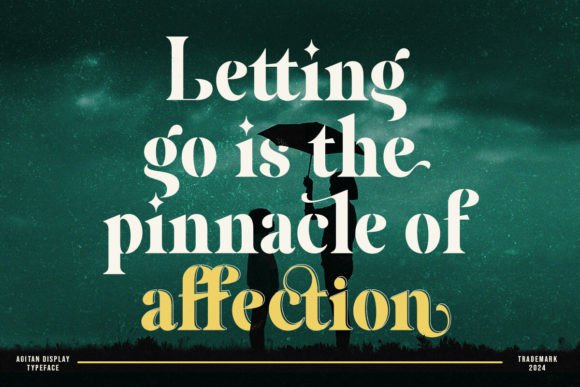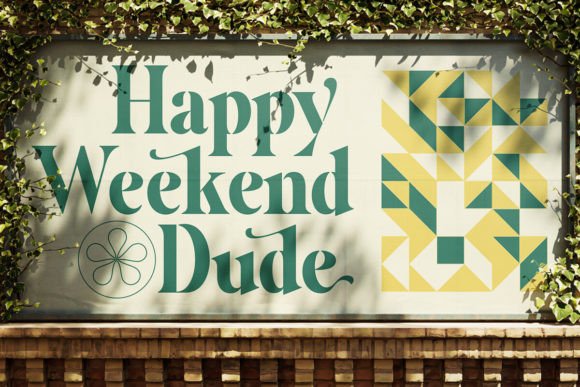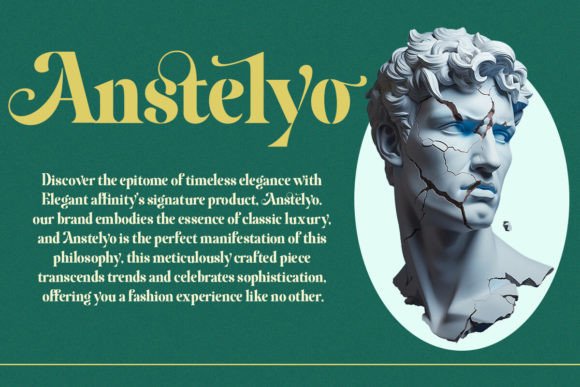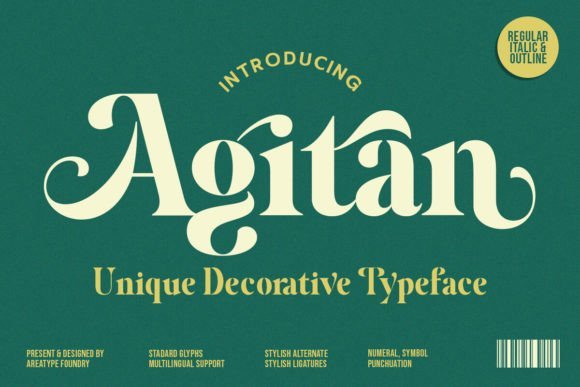
Introduction to Agitan Font
Agitan Display is a beautiful and stylish serif font.
It has a unique and feminine look, making it perfect for elegant designs .
Key Features of Agitan Font
Why Choose Agitan Font?
Agitan Font offers exceptional quality and versatility, making it a valuable addition to your design toolkit. Whether you’re creating for personal projects or commercial use, Agitan Font delivers professional results.